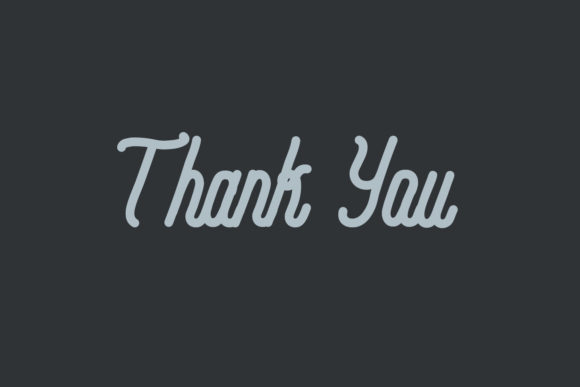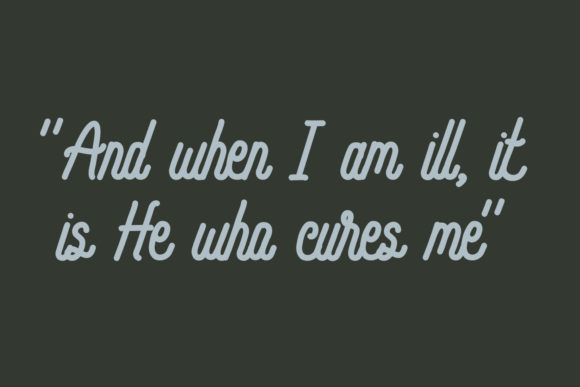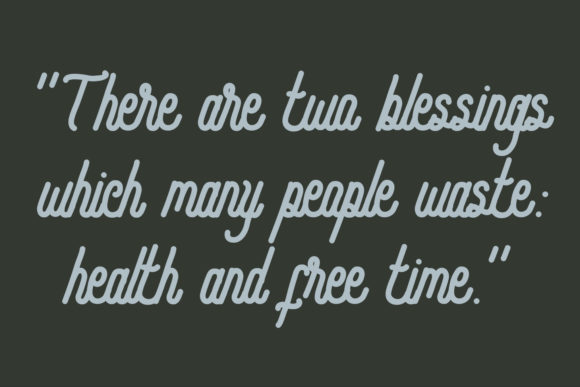
Introduction to Expectra Font
Expectra is a beautiful, well balanced and vintage styled handwritten font.
This font was particularly crafted for those who need a beautiful and refreshing look to their designs .